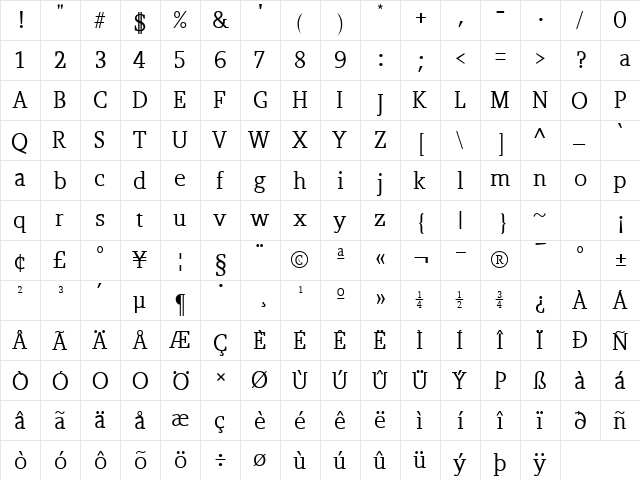
HoTomLL Regular
Design Context for HoTomLL Typeface
HoTomLL takes a measured approach to typography — its balanced proportions and neutral character make it a reliable workhorse for both digital and print work.